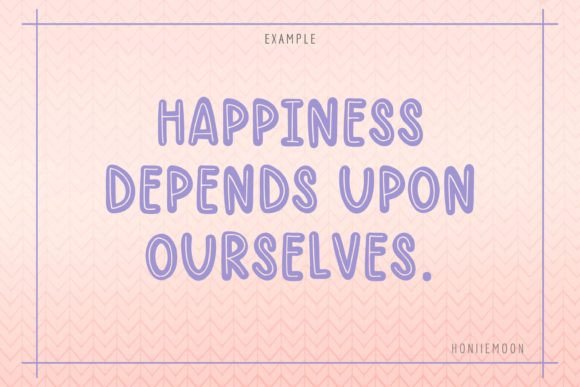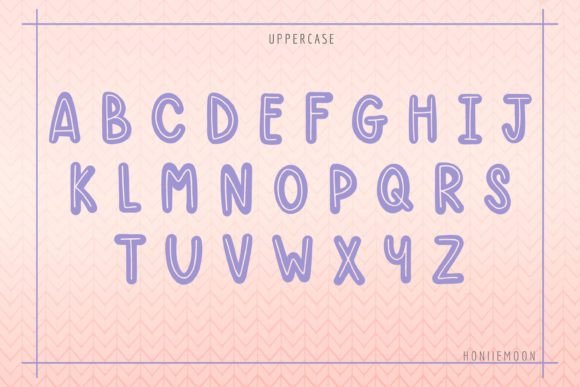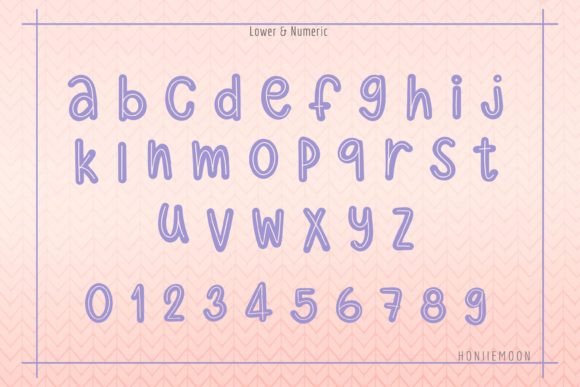
The Ultimate Guide to CARA Font: Elevate Your Designs with this Fun and Playful Display Font
I’ll never forget the time I was working on a project for a children’s birthday party invitation. I had the design concept all sorted out, but I was stuck on finding the perfect font. That’s when I stumbled upon CARA font, and it completely transformed my design. In this article, I’ll share my experience with CARA font, its features, and how to make the most of it in your designs.
What is CARA Font?
CARA is a cool and fun display font that can add a touch of playfulness to any design. Its cute and jolly vibe makes it perfect for projects that require a bit of whimsy. The only limit is your imagination! With CARA font, you can create stunning designs that will capture the attention of your audience.
- ✨ CARA font is incredibly versatile and can be used for a wide range of design projects, from invitations to social media graphics.
- ✅ The font is highly legible, even at smaller sizes, making it perfect for designs that require a lot of text.
- 💥 The bold and colorful appearance of CARA font makes it perfect for designs that need to stand out.
While CARA font is an excellent choice for many designs, there are a few things to keep in mind:
- ⚠️ CARA font may not be the best choice for body text, as it’s a display font and can be overwhelming for longer blocks of text.
- 🤔 Some users may find that the font’s playful vibe isn’t suitable for more formal or professional designs.
- Use the OpenType features, such as glyphs and stylistic alternates, to add more variety to your text.
CARA font offers a range of OpenType features and glyphs that can enhance your designs. Here are a few tips on how to use them:
- Use stylistic alternates to add more variety to your text.
- Experiment with different glyphs to add more visual interest to your design.
- Use the font’s bold appearance to create stunning headings and titles.
The Backstory Behind CARA Font
CARA font was designed with the intention of creating a fun and playful display font that could add a touch of whimsy to any design. The font’s creator wanted to create a font that was both cute and jolly, with a bold and colorful appearance.
Q: Is CARA font suitable for body text?
A: While CARA font is an excellent choice for display text, it may not be the best choice for body text. Its bold and playful appearance can be overwhelming for longer blocks of text.